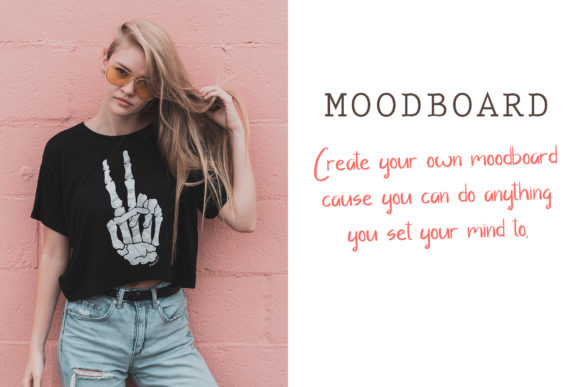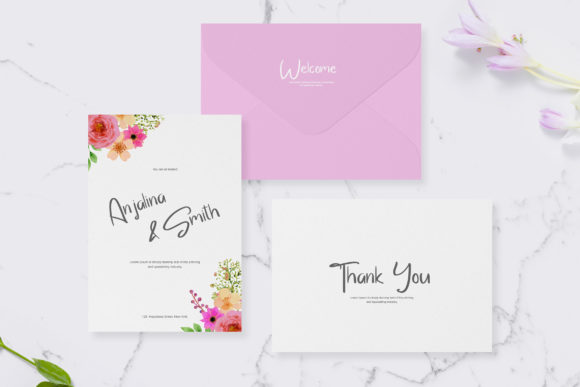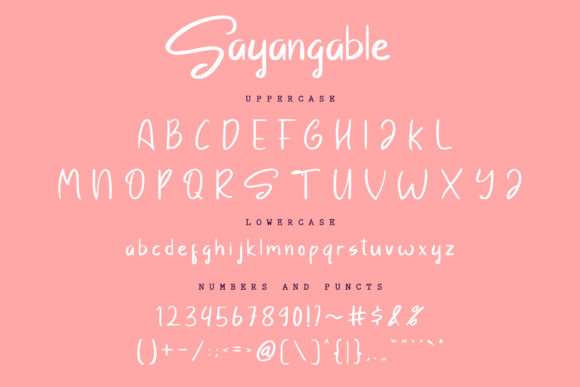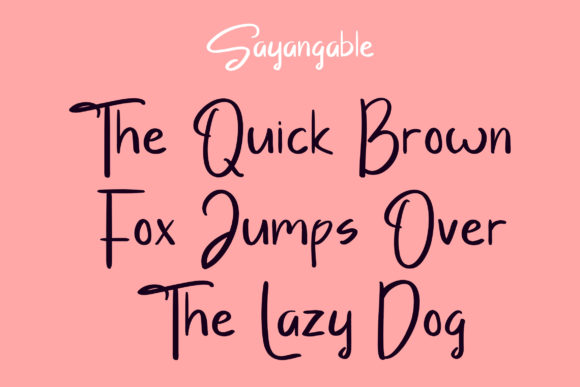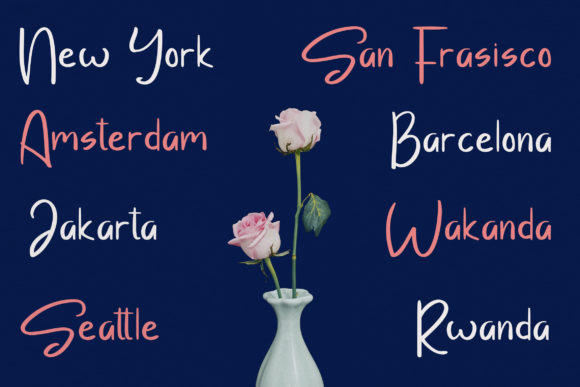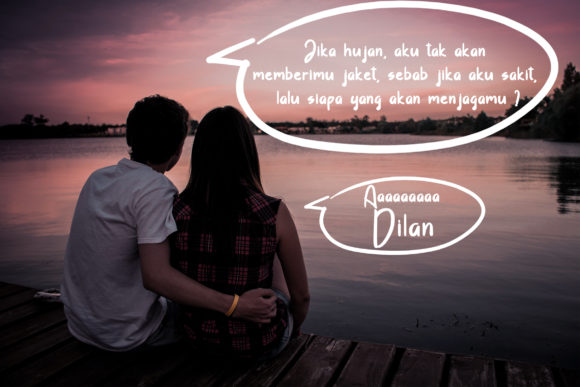
Introduction to Sayangable Font Font
Fonts play a crucial role in design, and the Sayangable Font font is a typeface that brings both character and versatility to any project. Whether you’re working on a branding project, a website, or a print design, the Sayangable Font font offers a unique style that can elevate your work.
Sayangable is a modern hand drawn font with a classic touch.
It has a contemporary, yet natural look which can be used for logos, branding, invitations, wedding designs, social media posts, and much more .
Key Features of Sayangable Font Font
Why Choose Sayangable Font Font?
The Sayangable Font font is more than just a typeface – it’s a design tool that helps you communicate your message with style and clarity. Its unique character set and versatile design make it suitable for a wide range of applications, from elegant invitations to bold headlines.
With its carefully crafted letterforms and balanced proportions, the Sayangable Font font ensures readability and visual appeal across all mediums.
What makes Sayangable Font font special?
The Sayangable Font font stands out with its unique design, exceptional readability, and versatility across various design applications.